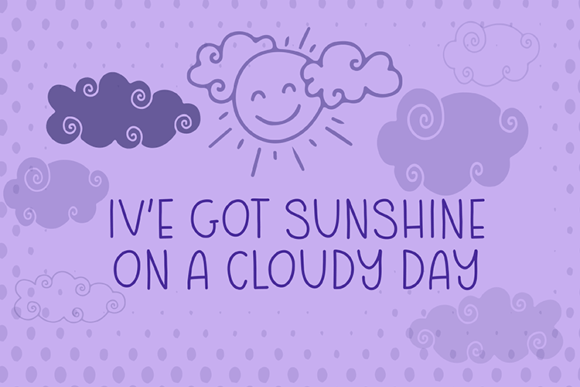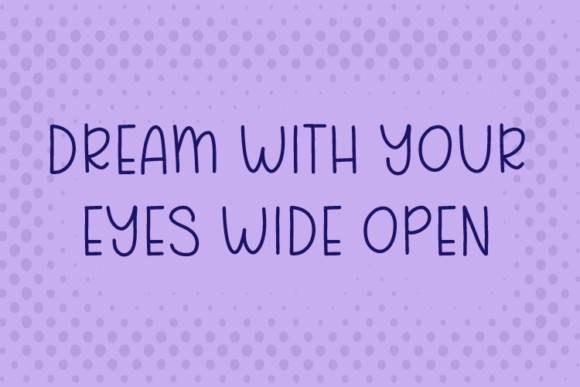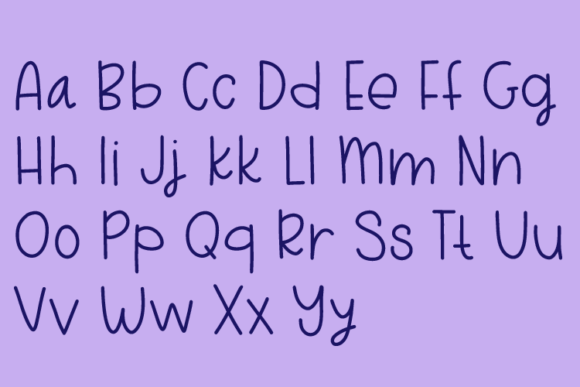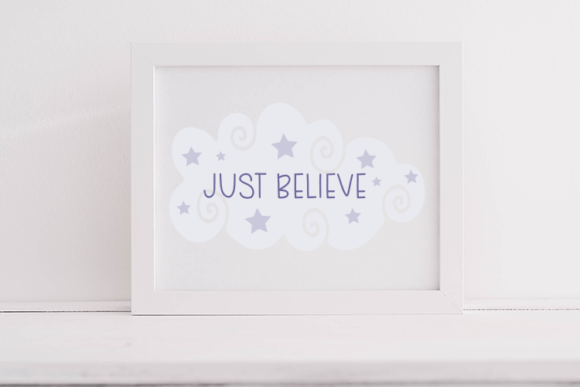
Dreamy Cloud Font: Elevate Your Designs with a Touch of Whimsy
Are you on the hunt for a font that can add a dash of magic to your designs? Look no further than the Dreamy Cloud Font! This lovely handwritten font is ideal for a wide range of creative projects, from SVG quotes and branding to logos, packaging, surface pattern design, book covers, T-Shirts, and much more. Its versatility and charm make it the perfect addition to any designer’s toolkit.
What Makes Dreamy Cloud Font So Special?
The Dreamy Cloud Font is a beautiful, handwritten font that exudes a sense of whimsy and wonder. Its dreamy, cloud-like quality makes it perfect for designs that require a touch of elegance and sophistication. Whether you’re creating a logo, a quote graphic, or a surface pattern, this font is sure to impress.
One of the standout features of the Dreamy Cloud Font is its versatility. It can be used on its own or paired with other fonts to create a unique and eye-catching design. Its clean lines and delicate curves make it easy to read, while its whimsical feel adds a touch of personality to any design.
The Dreamy Cloud Font is a dream come true for designers and crafters who are looking for a font that can help them create stunning, professional-looking designs. Whether you’re a seasoned pro or just starting out, this font is easy to use and can be incorporated into a wide range of projects.
For designers, the Dreamy Cloud Font is perfect for:
• SVG quotes and graphics
• Branding and logos
• Packaging design
• Surface pattern design
• Book covers and e-book designs
For crafters, the Dreamy Cloud Font is ideal for:
• T-Shirt designs
• Mug and water bottle designs
• Stationery and journaling
• Card making and scrapbooking
Tips for Using the Dreamy Cloud Font
To get the most out of the Dreamy Cloud Font, here are a few tips to keep in mind:
• Use it on its own for a clean and elegant look
• Pair it with other fonts for a unique and eye-catching design
• Experiment with different colors and textures to add depth and interest
• Use it in combination with graphics and illustrations for a more dynamic design
Why Choose the Dreamy Cloud Font?
So why choose the Dreamy Cloud Font over other fonts on the market? Here are just a few reasons:
• Its unique and whimsical feel sets it apart from other fonts
• Its versatility makes it perfect for a wide range of projects
• Its clean lines and delicate curves make it easy to read
• Its high-quality design ensures that it will look great in any design
Font Name Dreamy Cloud Font
Author carrtoonz
In conclusion, the Dreamy Cloud Font is a beautiful and versatile font that is perfect for designers and crafters who are looking to add a touch of whimsy to their designs. Its unique feel, clean lines, and delicate curves make it easy to use and perfect for a wide range of projects. Whether you’re creating a logo, a quote graphic, or a surface pattern, this font is sure to impress. So why wait? Download the Dreamy Cloud Font today and start elevating your designs to new heights!